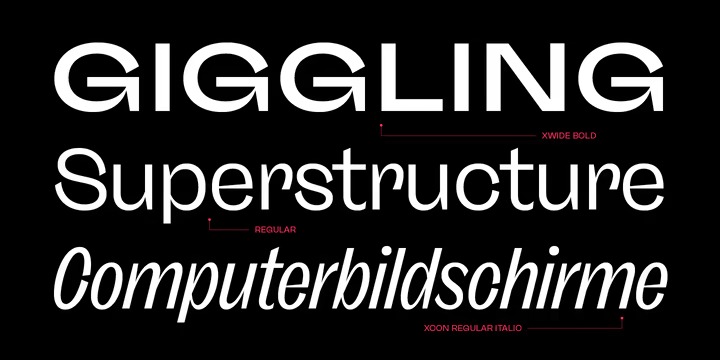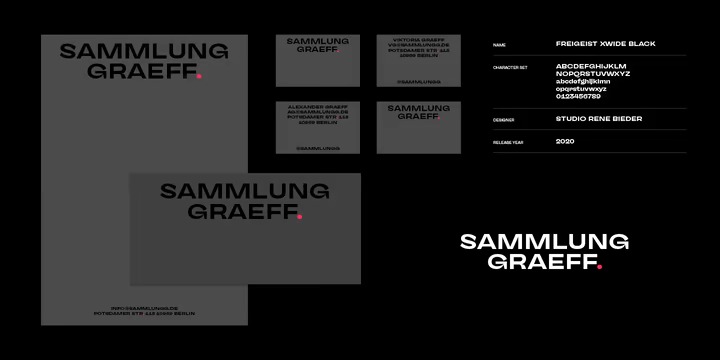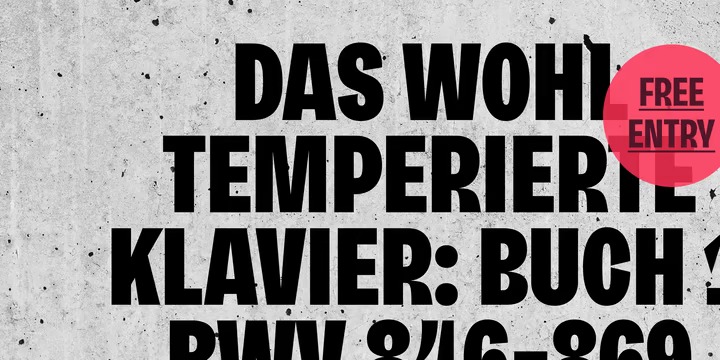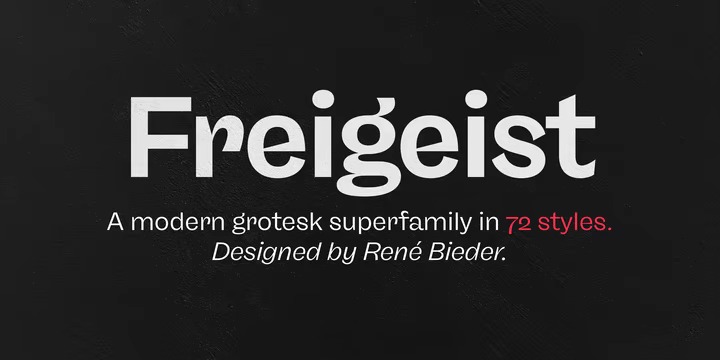
Freigeist Font Family
Freigeist Sans Serif Font
This font is a modern grotesk sans serif for display or short text purposes. Freigeist is characterized by a warm and dynamic appearance. It draws inspiration from various historical models such as Caslon’s Doric or the Grotesque variants of Stephenson Blake. Particularly noticeable are the narrow terminals, the serpentine S or the dynamic g in combination with ascenders that reach to the cap-height only.